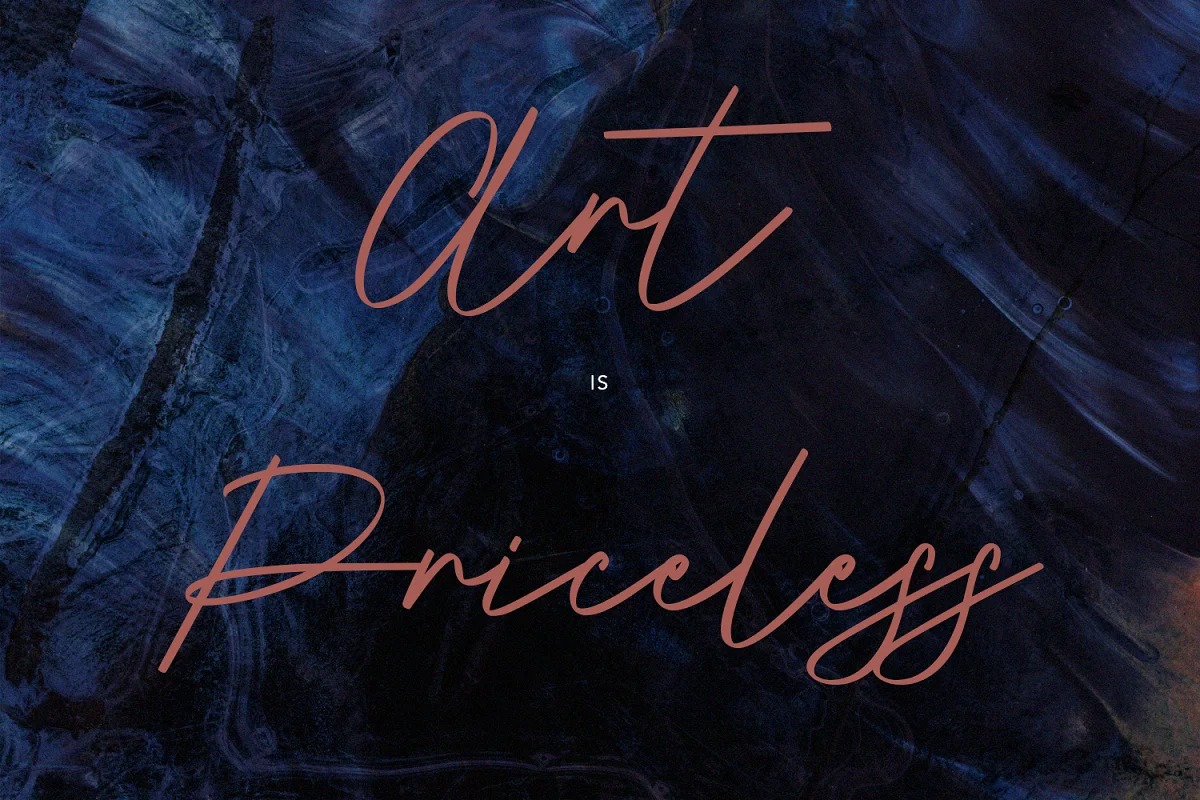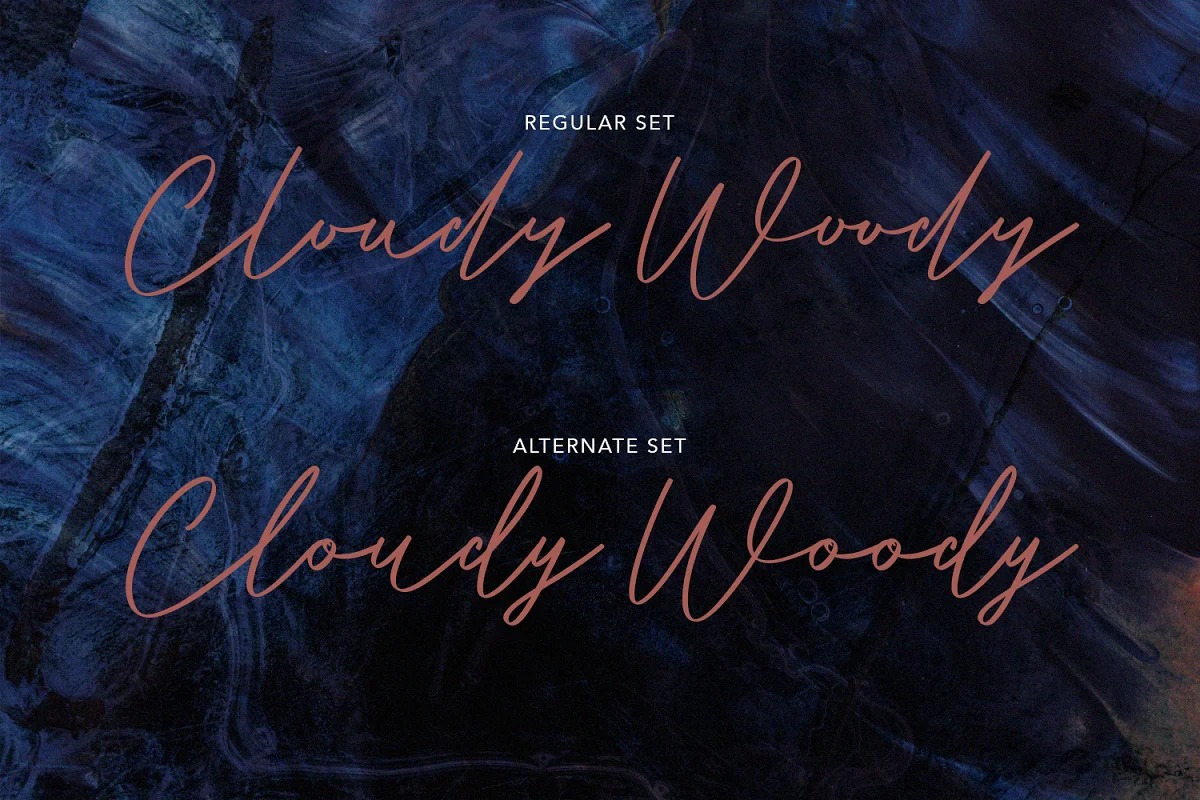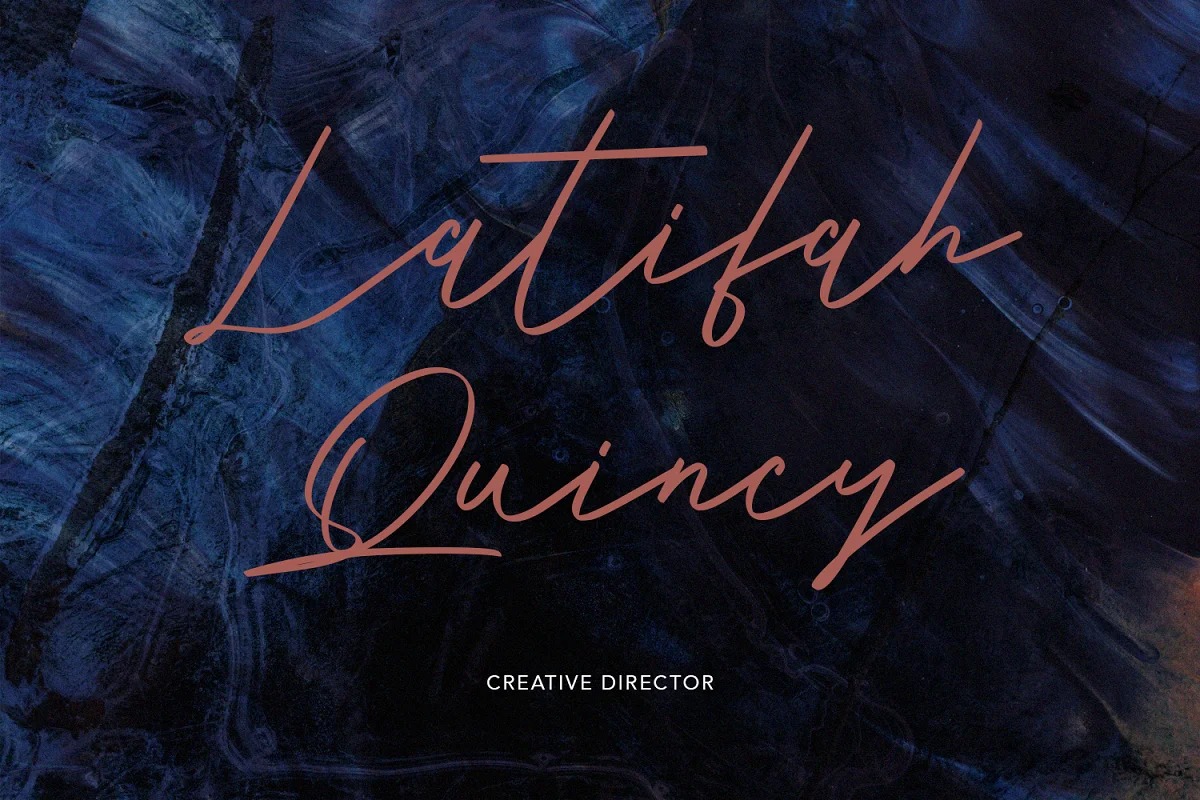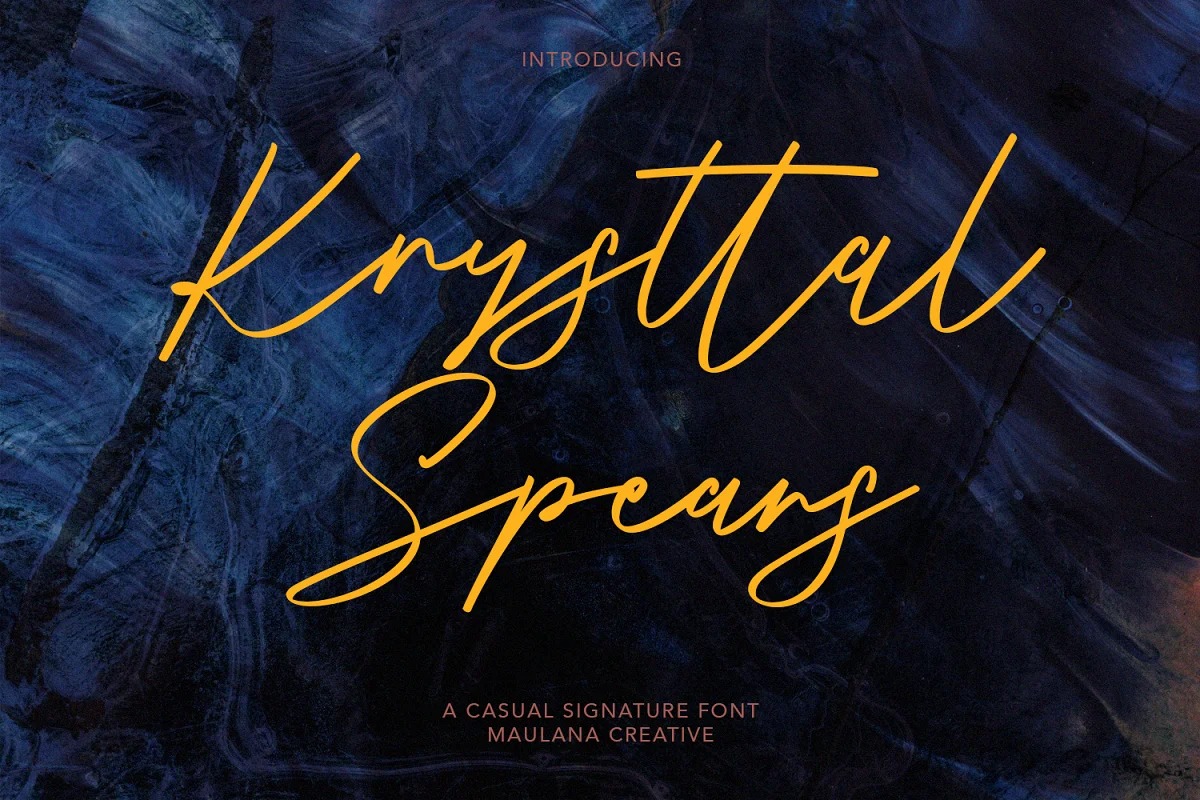
Krysttal Spears Font
Krysttal Spears Handwritten Font
If you’re looking for a bit of a hand-drawn script typeface, we strongly suggest you have a look at Krysttal Spears, a playful and modern script designed by Maulana Creative .  Krysttal Spears is an original script font with a modern, contemporary style and beautiful, natural flow. This font is perfect for many projects such as logos & branding, invitation, stationery, wedding designs, social media posts, advertisements, product packaging, product designs, label, photography, watermark, and others.